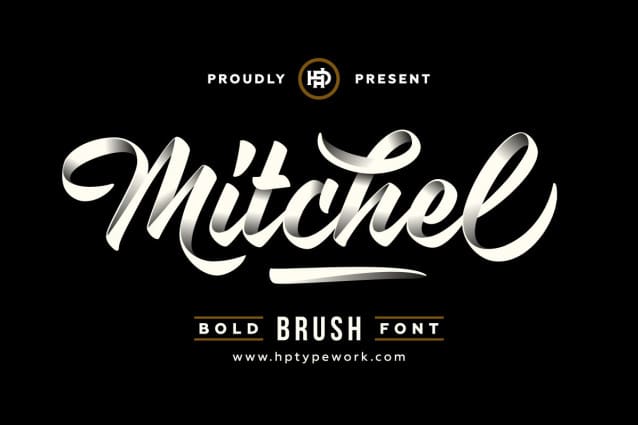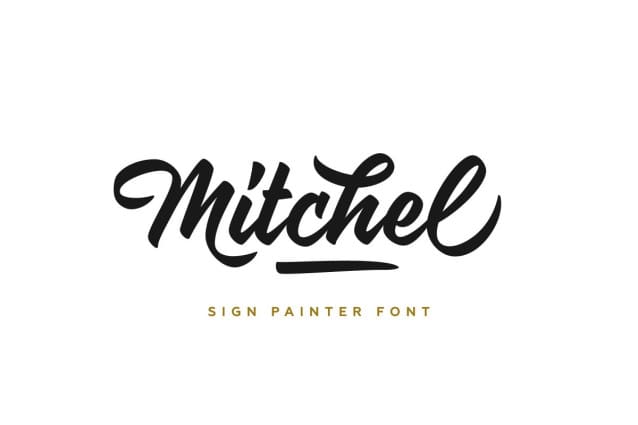
Mitchel Font
Mitchel Font, is a fresh script font, created with consistent and stylish neat strokes. It is suitable for logos, titles, t-shirts, packages and where ever you need the stylish script font.